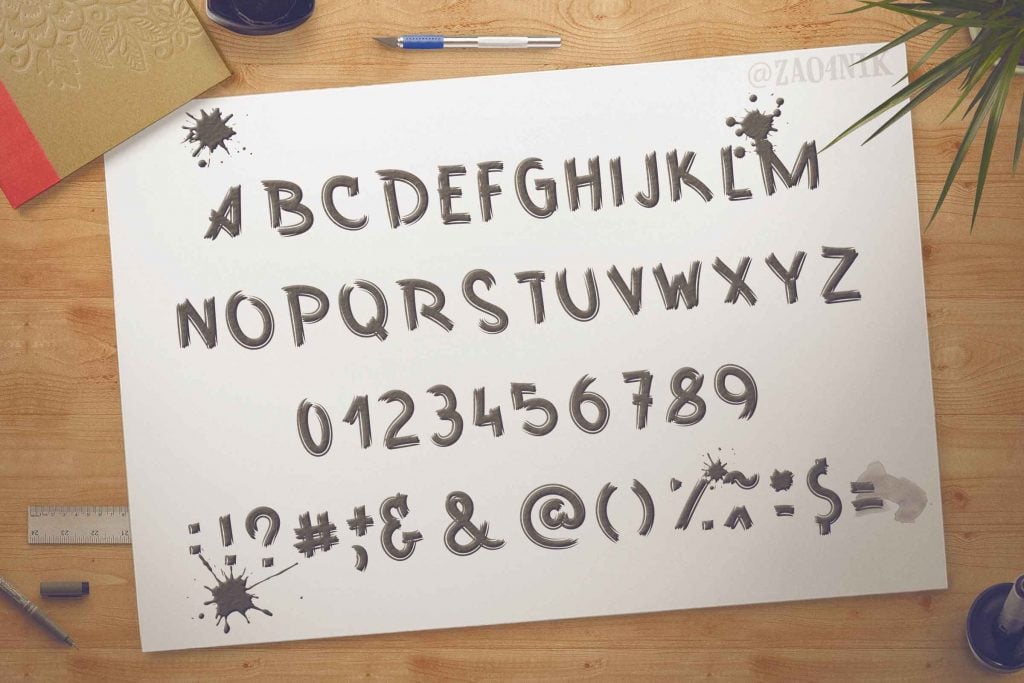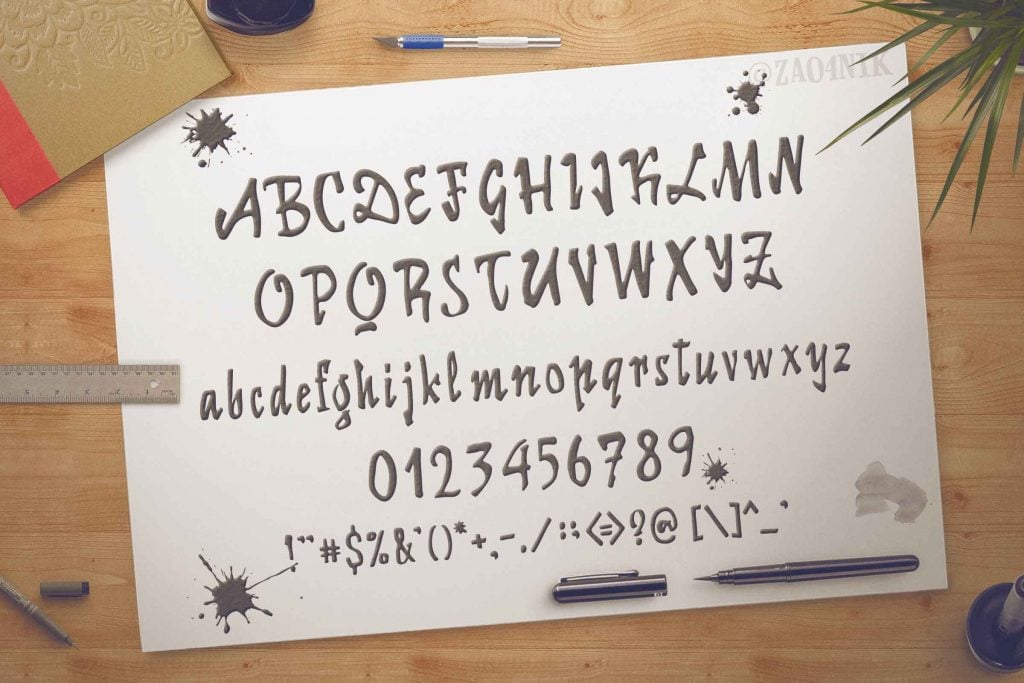
Best Fonts For Vinyl Lettering . Instead, read these easy tips and find the best fonts for cricut vinyl from envato elements for vinyl cutting with cricut. Discover 52 fonts for vinyl. Learn how to choose fonts that suit vinyl cutting and weeding, from script to serif to sans serif styles. The best fonts for vinyl lettering are those that are legible, visually appealing, and appropriate for the intended use. Popular cricut font starkey bold script: By considering clarity, aesthetics, and. Some of the best fonts you can use for small vinyl cutting are sans serif font, cricut sans, and pacifico. We’ve explored the 15 best fonts across different categories, each with its unique qualities. Learn how to install fonts into vinyl master and. Why is my vinyl peeling while cutting? Learn how to choose the best fonts and combinations for your cricut projects, whether you want to write or cut them. Find over 100,000 free fonts for your vinyl cutting projects from various websites. Find out the difference between system and cricut fonts, writing fonts, and cuttable fonts, and see examples of popular font pairs.
By considering clarity, aesthetics, and. Learn how to choose the best fonts and combinations for your cricut projects, whether you want to write or cut them. Why is my vinyl peeling while cutting? The best fonts for vinyl lettering are those that are legible, visually appealing, and appropriate for the intended use. Learn how to choose fonts that suit vinyl cutting and weeding, from script to serif to sans serif styles. Discover 52 fonts for vinyl. Popular cricut font starkey bold script: Find out the difference between system and cricut fonts, writing fonts, and cuttable fonts, and see examples of popular font pairs. We’ve explored the 15 best fonts across different categories, each with its unique qualities. Some of the best fonts you can use for small vinyl cutting are sans serif font, cricut sans, and pacifico.
Best Fonts For Vinyl Lettering Find out the difference between system and cricut fonts, writing fonts, and cuttable fonts, and see examples of popular font pairs. Popular cricut font starkey bold script: Find over 100,000 free fonts for your vinyl cutting projects from various websites. By considering clarity, aesthetics, and. Some of the best fonts you can use for small vinyl cutting are sans serif font, cricut sans, and pacifico. Learn how to install fonts into vinyl master and. The best fonts for vinyl lettering are those that are legible, visually appealing, and appropriate for the intended use. Discover 52 fonts for vinyl. We’ve explored the 15 best fonts across different categories, each with its unique qualities. Instead, read these easy tips and find the best fonts for cricut vinyl from envato elements for vinyl cutting with cricut. Why is my vinyl peeling while cutting? Find out the difference between system and cricut fonts, writing fonts, and cuttable fonts, and see examples of popular font pairs. Learn how to choose fonts that suit vinyl cutting and weeding, from script to serif to sans serif styles. Learn how to choose the best fonts and combinations for your cricut projects, whether you want to write or cut them.
12 Best Fonts for Vinyl Lettering in 2021 MasterBundles Best Fonts For Vinyl Lettering Instead, read these easy tips and find the best fonts for cricut vinyl from envato elements for vinyl cutting with cricut. Learn how to choose fonts that suit vinyl cutting and weeding, from script to serif to sans serif styles. The best fonts for vinyl lettering are those that are legible, visually appealing, and appropriate for the intended use. By. Best Fonts For Vinyl Lettering.
The Top 10 Best Fonts for Vinyl Font Bundles Blog Best Fonts For Vinyl Lettering Learn how to choose fonts that suit vinyl cutting and weeding, from script to serif to sans serif styles. Find over 100,000 free fonts for your vinyl cutting projects from various websites. Discover 52 fonts for vinyl. Why is my vinyl peeling while cutting? Some of the best fonts you can use for small vinyl cutting are sans serif font,. Best Fonts For Vinyl Lettering.
12 Best Fonts for Vinyl Lettering in 2021 MasterBundles Best Fonts For Vinyl Lettering Instead, read these easy tips and find the best fonts for cricut vinyl from envato elements for vinyl cutting with cricut. Some of the best fonts you can use for small vinyl cutting are sans serif font, cricut sans, and pacifico. Learn how to choose the best fonts and combinations for your cricut projects, whether you want to write or. Best Fonts For Vinyl Lettering.
12 Best Fonts for Vinyl Lettering in 2021 MasterBundles Best Fonts For Vinyl Lettering Popular cricut font starkey bold script: Learn how to choose the best fonts and combinations for your cricut projects, whether you want to write or cut them. Learn how to choose fonts that suit vinyl cutting and weeding, from script to serif to sans serif styles. The best fonts for vinyl lettering are those that are legible, visually appealing, and. Best Fonts For Vinyl Lettering.
Vinyl Versatility The 52 Best Fonts for Vinyl Lettering Best Fonts For Vinyl Lettering By considering clarity, aesthetics, and. We’ve explored the 15 best fonts across different categories, each with its unique qualities. Find over 100,000 free fonts for your vinyl cutting projects from various websites. Why is my vinyl peeling while cutting? Instead, read these easy tips and find the best fonts for cricut vinyl from envato elements for vinyl cutting with cricut.. Best Fonts For Vinyl Lettering.
25+ Best Cricut Fonts for Vinyl Projects & Crafts (2021) Creative Fabrica Best Fonts For Vinyl Lettering The best fonts for vinyl lettering are those that are legible, visually appealing, and appropriate for the intended use. Learn how to choose the best fonts and combinations for your cricut projects, whether you want to write or cut them. Some of the best fonts you can use for small vinyl cutting are sans serif font, cricut sans, and pacifico.. Best Fonts For Vinyl Lettering.
The Top 10 Best Fonts for Vinyl Font Bundles Blog Best Fonts For Vinyl Lettering Popular cricut font starkey bold script: Find out the difference between system and cricut fonts, writing fonts, and cuttable fonts, and see examples of popular font pairs. Learn how to install fonts into vinyl master and. By considering clarity, aesthetics, and. Learn how to choose fonts that suit vinyl cutting and weeding, from script to serif to sans serif styles.. Best Fonts For Vinyl Lettering.
Custom Vinyl Lettering Decals Any Font Any Size Any Color. Best Fonts For Vinyl Lettering Find out the difference between system and cricut fonts, writing fonts, and cuttable fonts, and see examples of popular font pairs. We’ve explored the 15 best fonts across different categories, each with its unique qualities. Learn how to choose the best fonts and combinations for your cricut projects, whether you want to write or cut them. The best fonts for. Best Fonts For Vinyl Lettering.
12 Best Fonts for Cricut in 2022 [Free+Cursive] TVC Best Fonts For Vinyl Lettering We’ve explored the 15 best fonts across different categories, each with its unique qualities. Instead, read these easy tips and find the best fonts for cricut vinyl from envato elements for vinyl cutting with cricut. Discover 52 fonts for vinyl. The best fonts for vinyl lettering are those that are legible, visually appealing, and appropriate for the intended use. Find. Best Fonts For Vinyl Lettering.